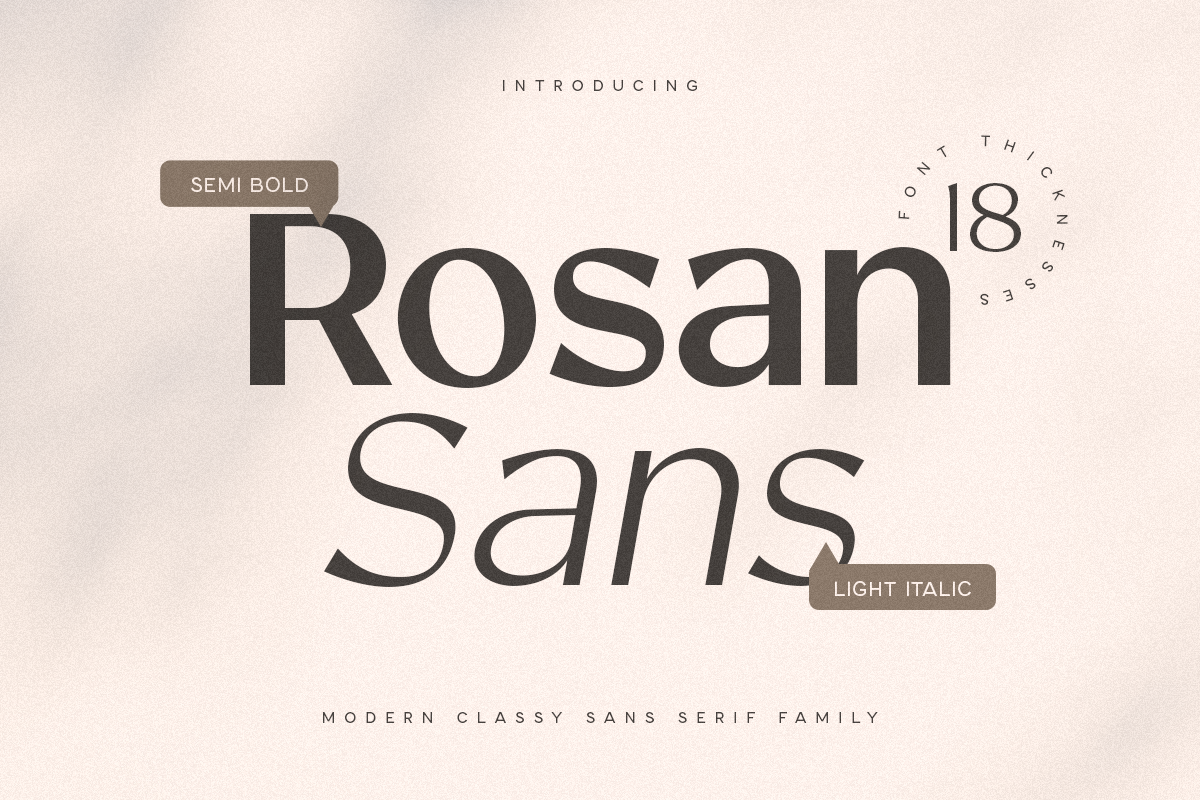
Rosan Sans - Classy Sans Serif Font
Elevate your brand with Rosan Sans - an exclusive classy sans serif font designed for sophisticated modern branding. This elegant typeface is crafted to enhance your brand's allure and elevate its perceived value. Whether you're a designer or product owner seeking stylish and contemporary solutions, Rosan Sans delivers the perfect typographic answer for your projects. What's Included: Rosan Sans Regular font (9 Weights) Rosan Sans Italic font (9 Weights) Complete character set A-Z Uppercase &...